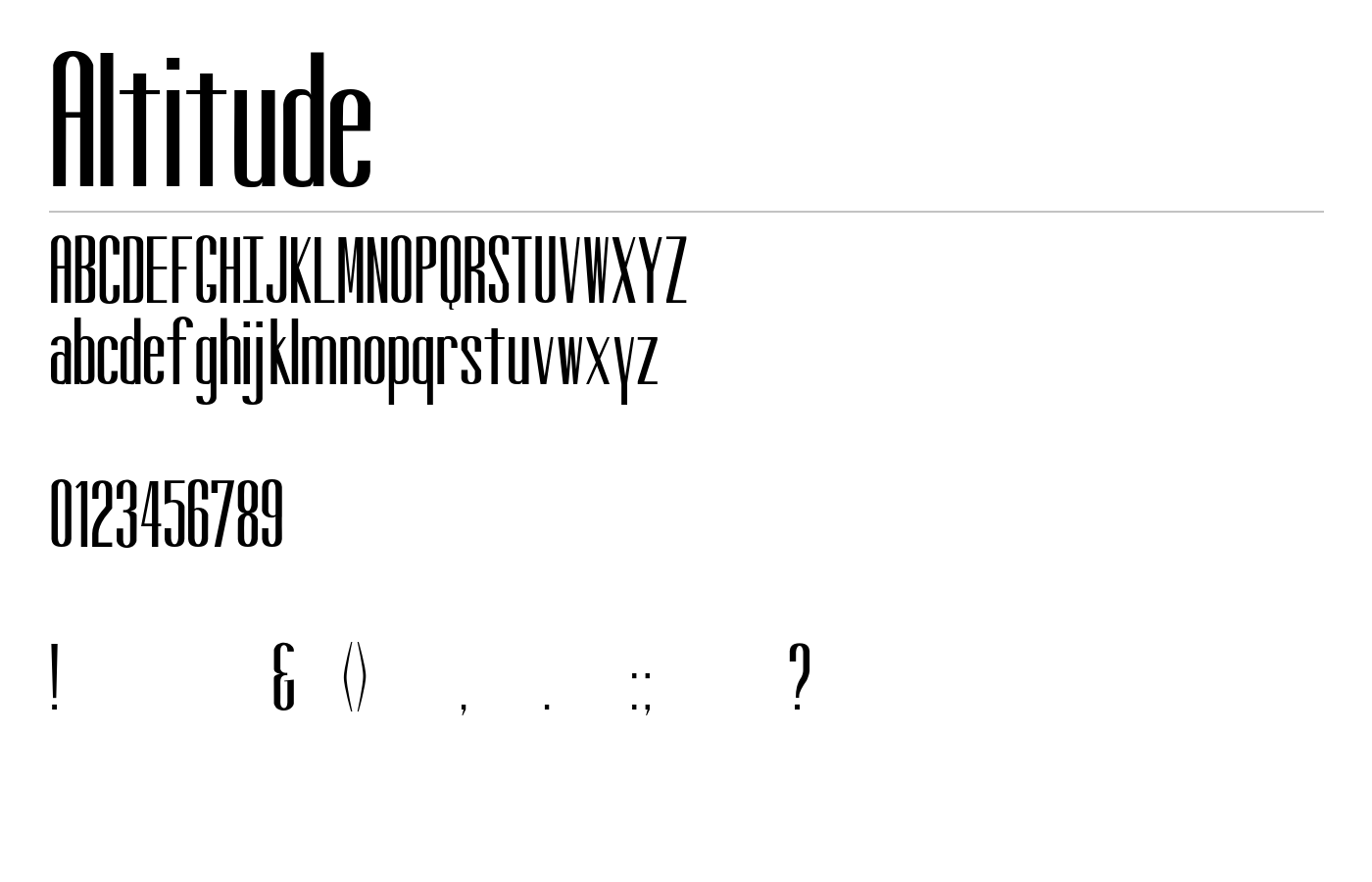
Altitude is a tall, narrow sans serif font with a clean and modern feel. Its condensed letterforms and consistent stroke weight give it a sleek, elegant look ideal for striking headlines, branding, and editorial design where a sophisticated, contemporary style is desired.
Altitude Font
About Altitude Font
| Font family | Altitude Font |
| Designer | David Estep |